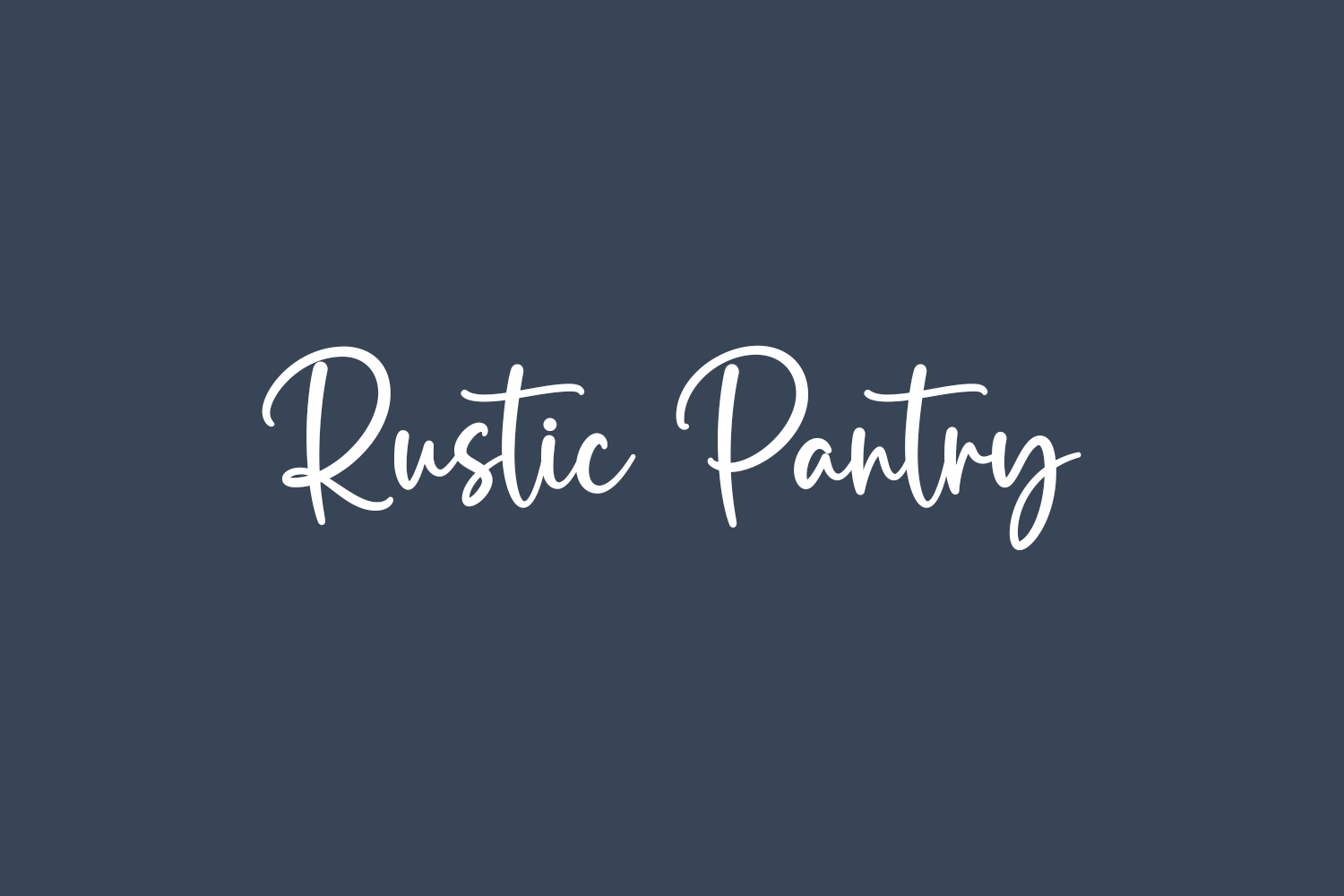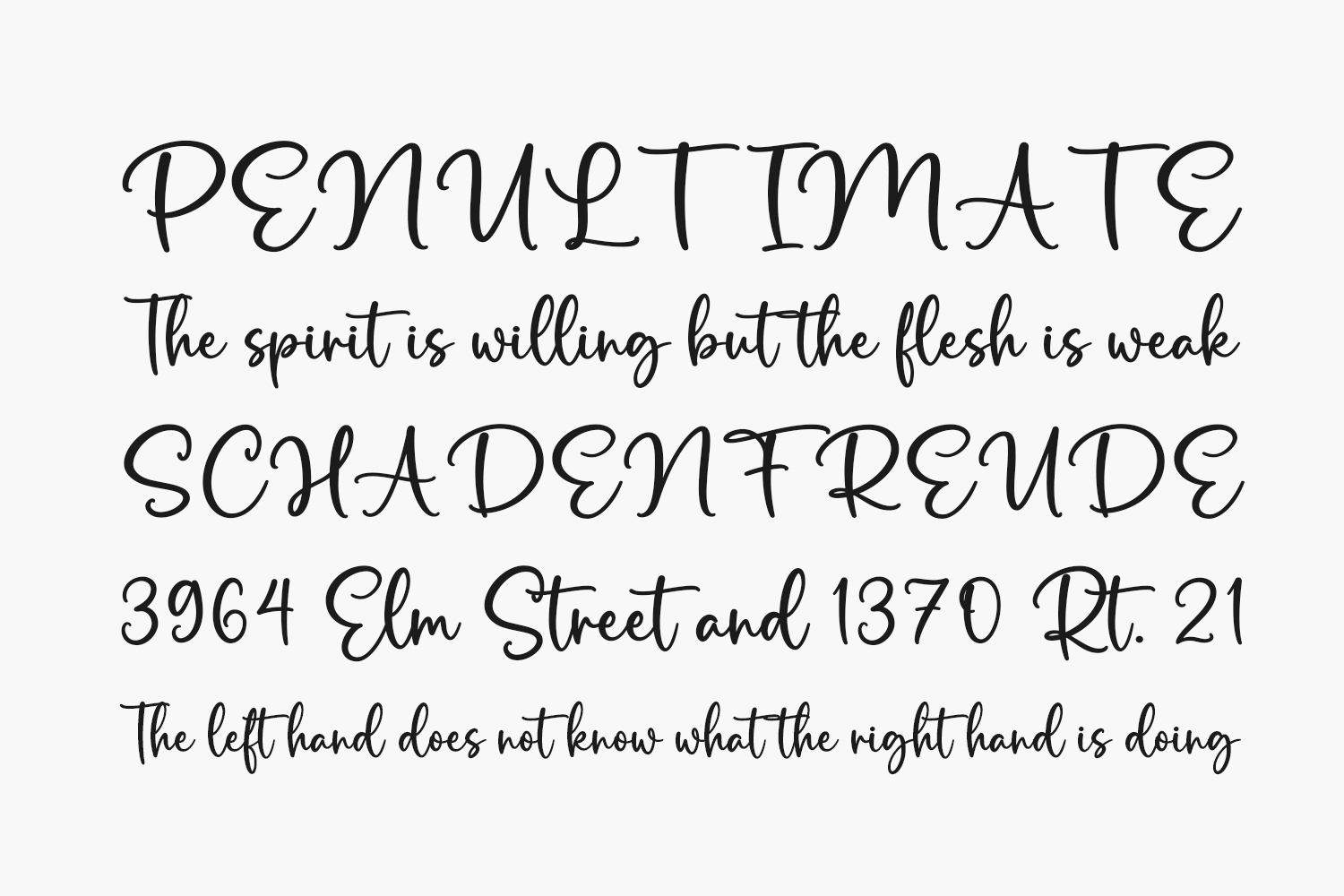
Rustic Pantry Free Font embodies a graceful and intricate handwritten typeface, characterized by delicate elegance and smooth flow. Its aesthetically pleasing and harmoniously balanced characters make it a versatile choice that complements a diverse range of design projects. Rustic Pantry Free Font is free for personal use only. Please purchase the full version for commercial use.